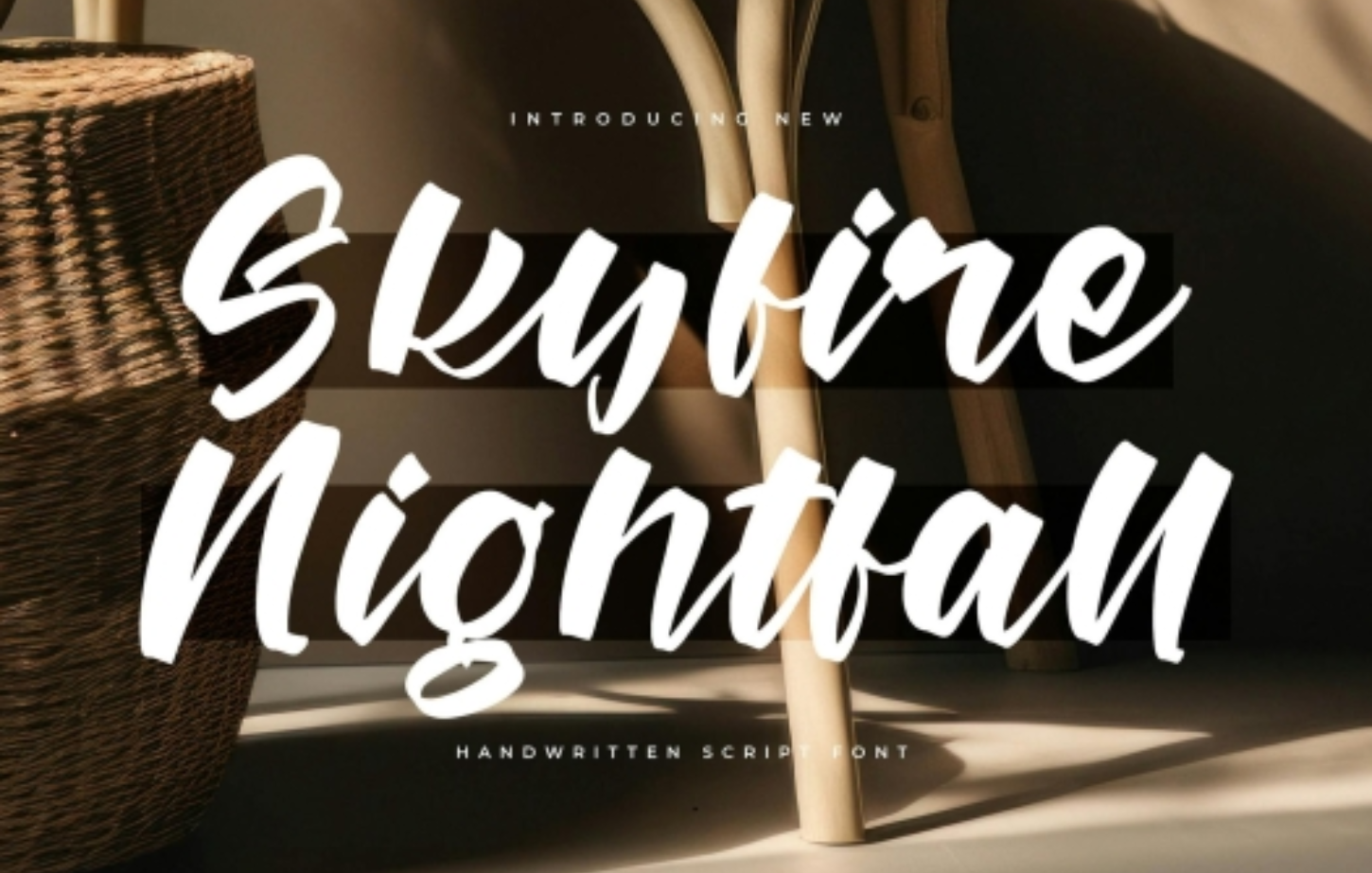
Skyfire Nightfall Handwritten Script Font
an elegant and versatile font designed to enhance the visual appeal of your digital and printed creations. Ideal for a wide range of applications such as posters, social media posts, branding projects, and personal endeavors, this font is your go-to choice for adding a touch of sophistication to your designs. The package includes essential file formats such as OTF, WOFF, and TTF, ensuring compatibility across different platforms and software.